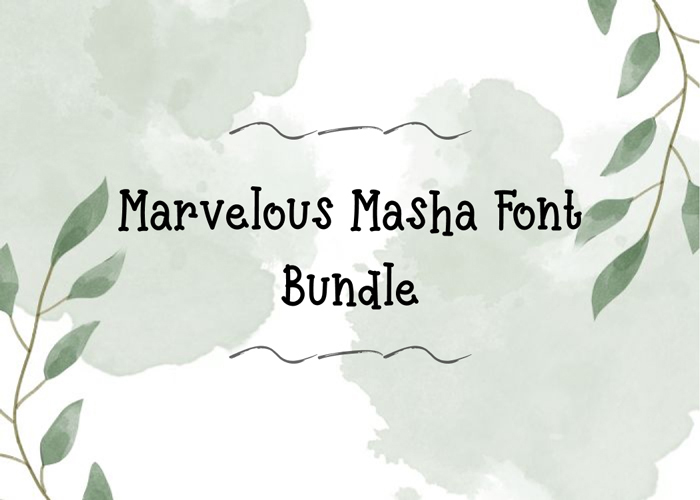
Get ready to elevate your design work with The Marvelous Masha, a beautiful and versatile handwritten font. Elegant, charming, and authentically hand-drawn, Masha adds personality to any project — from invitations and logos to social media posts and packaging.
- Full set of uppercase and lowercase letters
- Numerals and punctuation marks
- Delicate, intricate strokes that create a natural handwritten feel
Why you’ll love it
- Elegant yet approachable — ideal for wedding invitations, branding, and greeting cards
- Versatile — works equally well for vintage-inspired designs or modern, chic layouts
Take a sneak peek at Masha’s flowing strokes and characterful letterforms — perfect for adding a handcrafted touch to your designs.